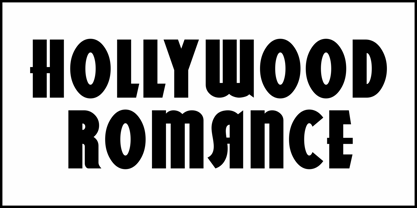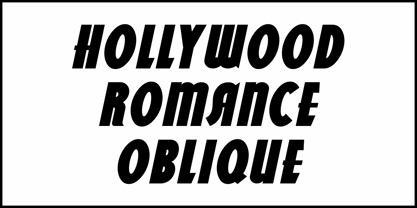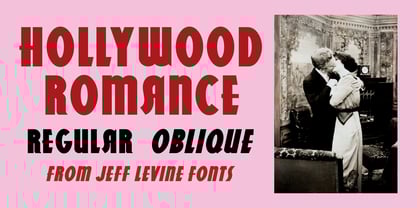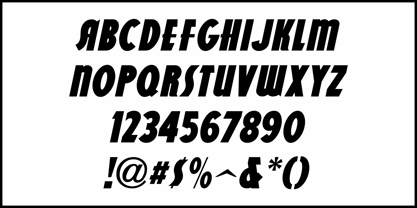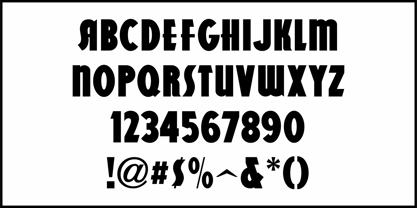
Hollywood Romance JNL
by Jeff Levine
The Hollywood Romance JNL Font Family was designed by Jeff Levine and published by Jeff Levine. Hollywood Romance JNL contains 2 styles and family package options. More about this family
An ad in the May 2, 1934 edition of The Film Daily for the movie "20 Million Sweethearts" featured hand lettering in a condensed Art Deco sans serif design.
This is now available as Hollywood Romance JNL, in both regular and oblique versions.